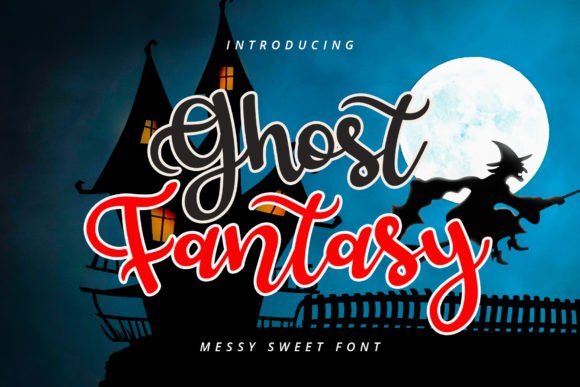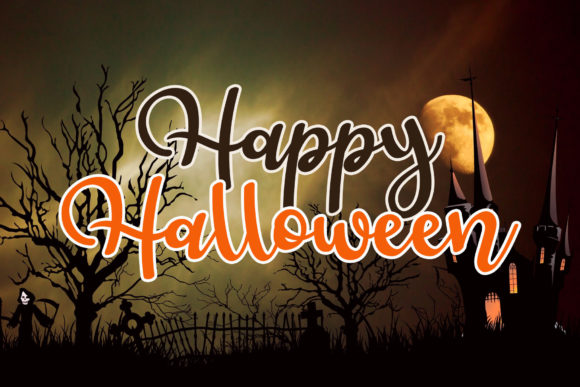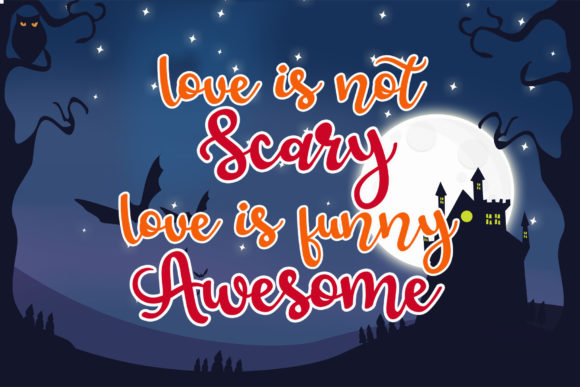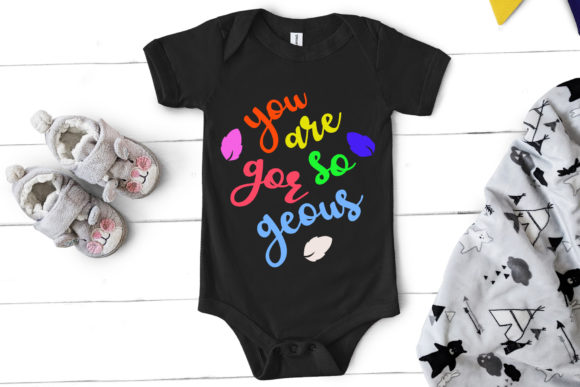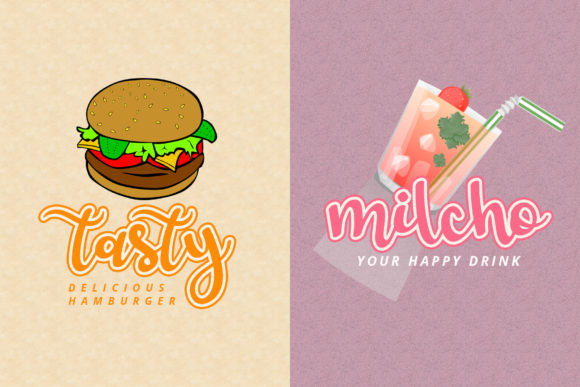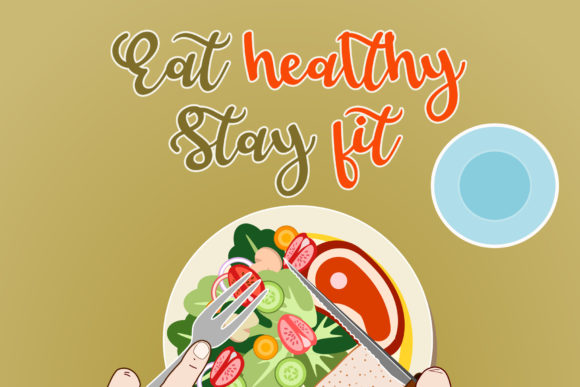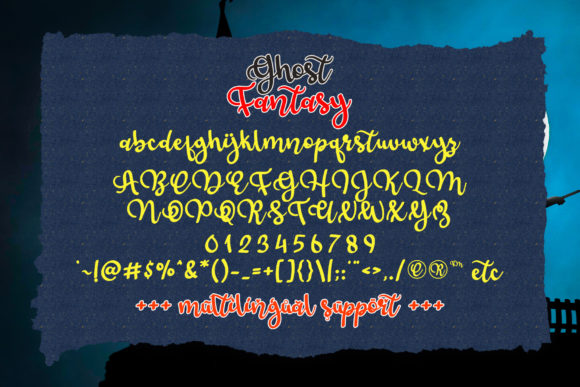
Unleash the Whimsy in Your Designs
Have you ever found yourself lost in a sea of creative ideas, struggling to bring them to life? Maybe you’ve stared at a blank page or screen for hours, waiting for inspiration to strike. I know I have – and it’s moments like those that make me grateful for the discovery of the perfect font. For designers, the right font can be the difference between a design that falls flat and one that captures the imagination of your audience.
Enter the Ghost Fantasy Font, a charming handwritten font that’s as relaxed as it is stylish. With its unique, flowing style, this font is the perfect addition to any design project. Whether you’re creating a whimsical brand identity, a romantic wedding invitation, or a playful social media post, Ghost Fantasy Font is sure to bring a touch of magic to your work.
Ghost Fantasy Font Key Features
- Font Style: A fantasy-inspired font with intricate details and unique characters, perfect for creating magical and mystical designs.
- Character Set: Includes a comprehensive set of characters, including uppercase and lowercase letters, numbers, punctuation, and special characters, as well as a range of fantasy-inspired symbols and glyphs.
- Unique Characteristics: Features intricate details, such as flourishes, swashes, and ornaments, which can be used to add a touch of magic and whimsy to designs.
Designer Review: Ghost Fantasy Font
Overall, I was excited to dive into the Ghost Fantasy Font. I’ve always been a fan of whimsical, mystical fonts that transport users to another world. And this one delivers ✨. The font’s unique blend of fantasy and elegance makes it perfect for anything from children’s books to fantasy novels.
Here are some of the things that really stand out:
- ✨ High level of detail: The font’s intricate designs and patterns add an extra layer of depth to any text.
- ✨ Versatility: Whether you’re looking to create a spooky atmosphere or a whimsical one, Ghost Fantasy Font has got you covered.
- ✨ Good legibility: Despite its fantastical nature, the font is surprisingly easy to read.
However, there are a few limitations to keep in mind ⚠️:
- ⚠️ Limited font sizes: The font looks best at larger sizes, so be prepared to use it for headings or titles.
- ⚠️ Not ideal for body text: While the font is great for headings, it’s not the best choice for large blocks of text.
- ⚠️ May not work well in all contexts: The font’s fantasy nature may not be suitable for all types of content, such as serious business documents or technical writing.
Overall, I think Ghost Fantasy Font is a great addition to any designer’s toolkit. With a little creativity and planning, it can be used to create some truly magical designs.
Getting the Most Out of the Ghost Fantasy Font
To get the most out of the Ghost Fantasy Font, try:
- Pairing it with a bold, contrasting font for maximum visual impact.
- Using it for headings and titles to create a sense of drama and mystery.
- Experimenting with different font sizes and colors to create a unique look.
The Ghost Fantasy Font is perfect for:
- Creating a sense of mystery and intrigue in your designs.
- Adding a touch of fantasy and whimsy to your projects.
- Designing for fantasy and science fiction themes.
Alternatives to Ghost Fantasy Font
Pacifico is a beautiful, elegant font ideal for titles, headings, and quotes. It features a flowing, cursive design that adds a touch of sophistication to any project. When to use: For high-end, luxury, or romantic designs.
Comparison: Pacifico has a more refined and polished look compared to Ghost Fantasy Font. It’s perfect for projects where a sense of elegance and refinement is required.